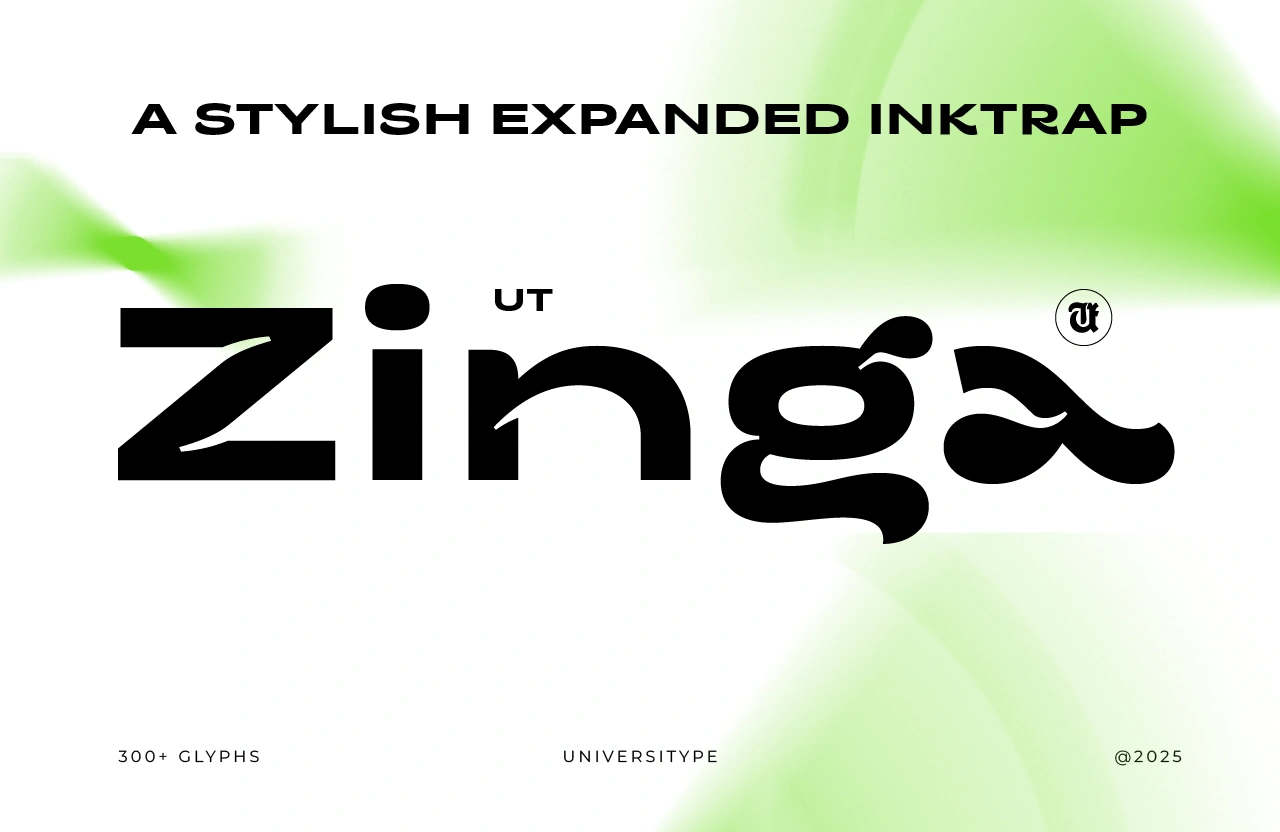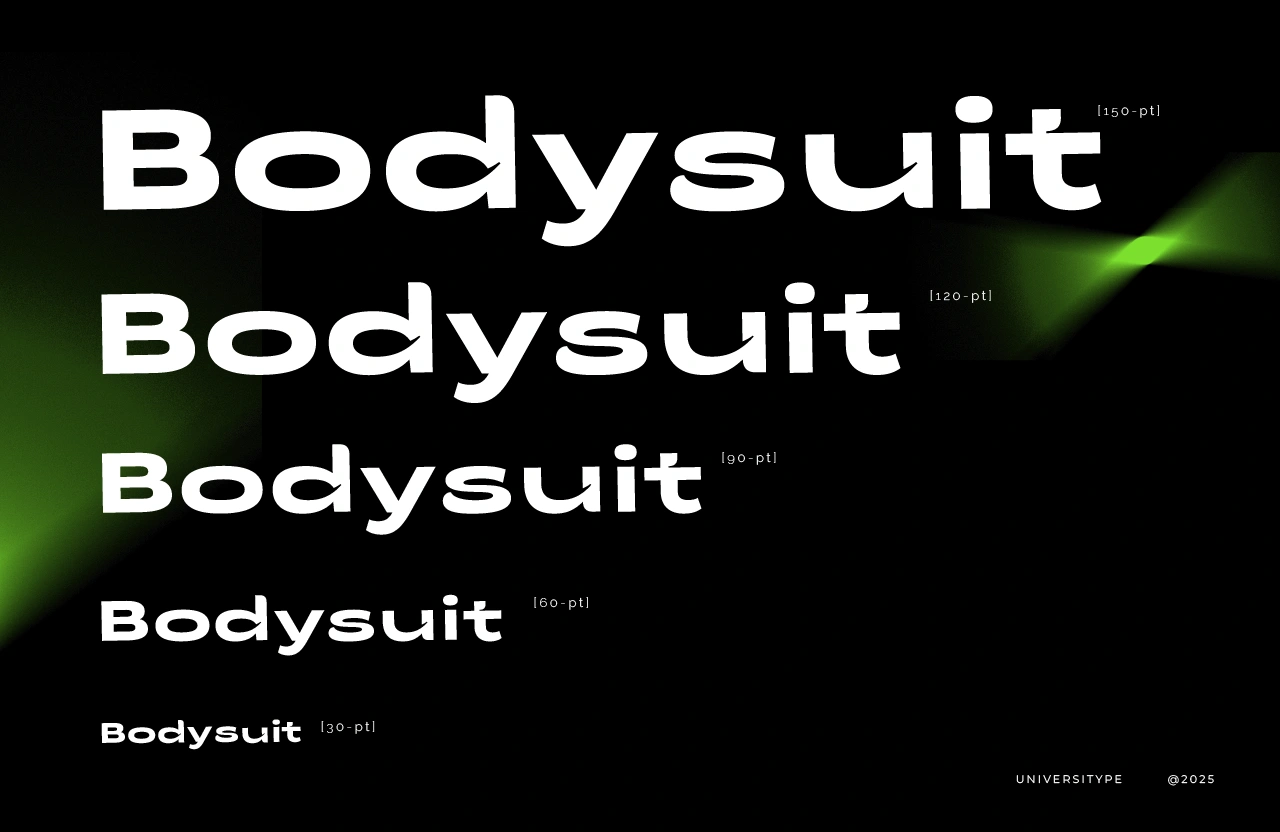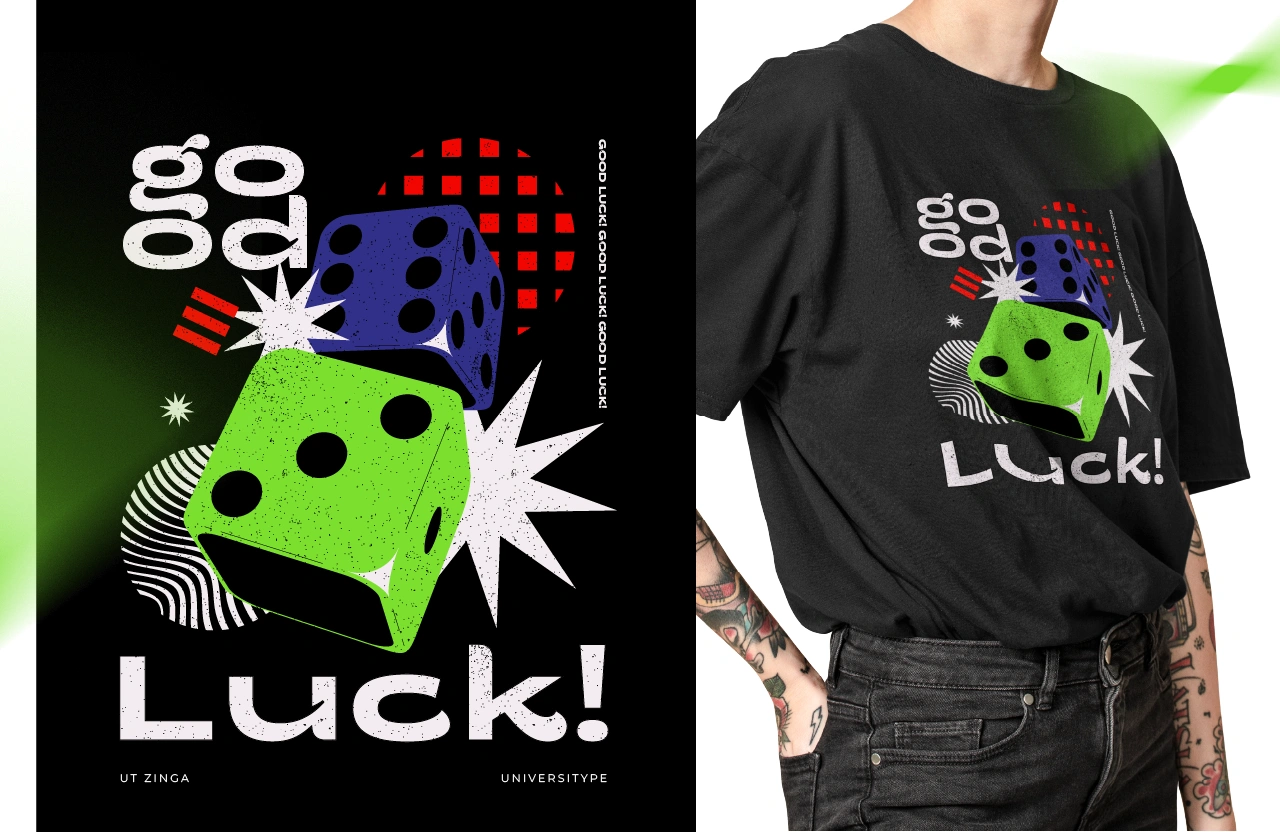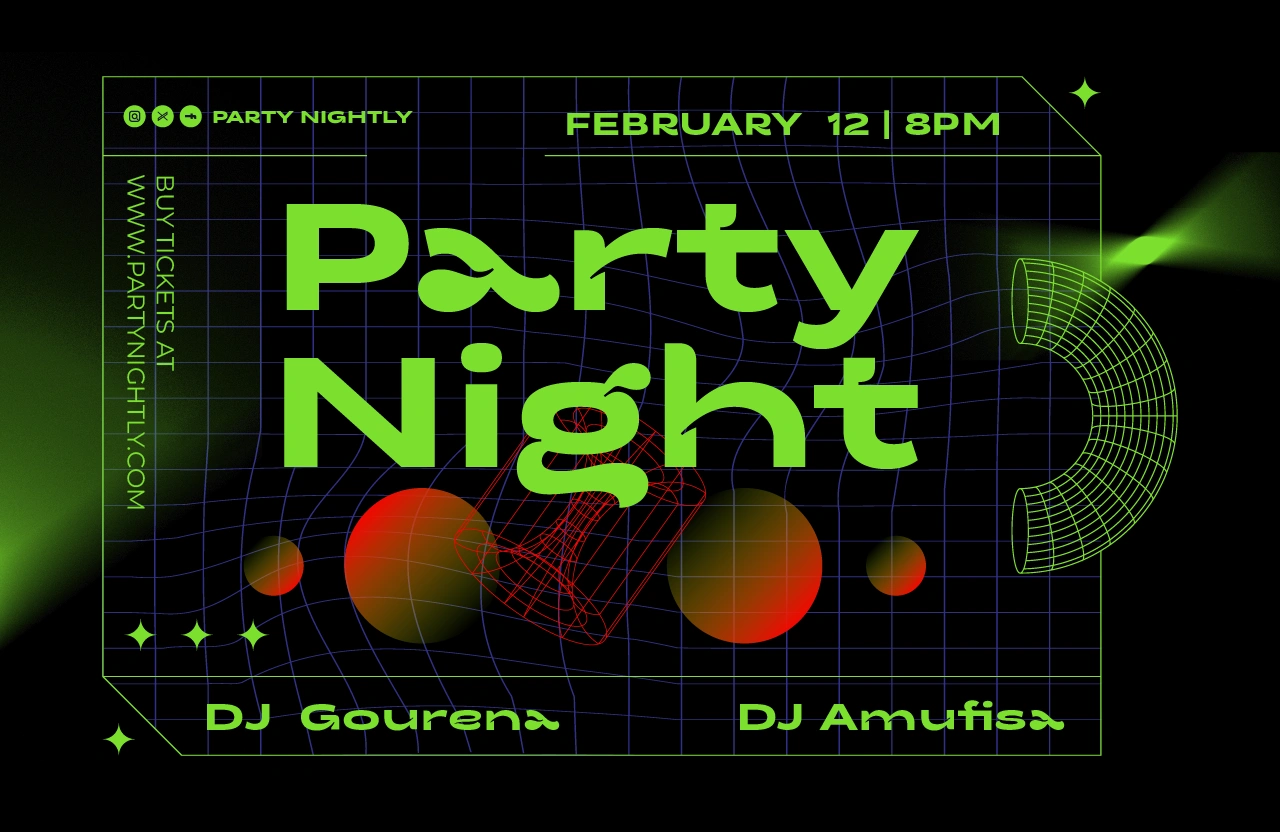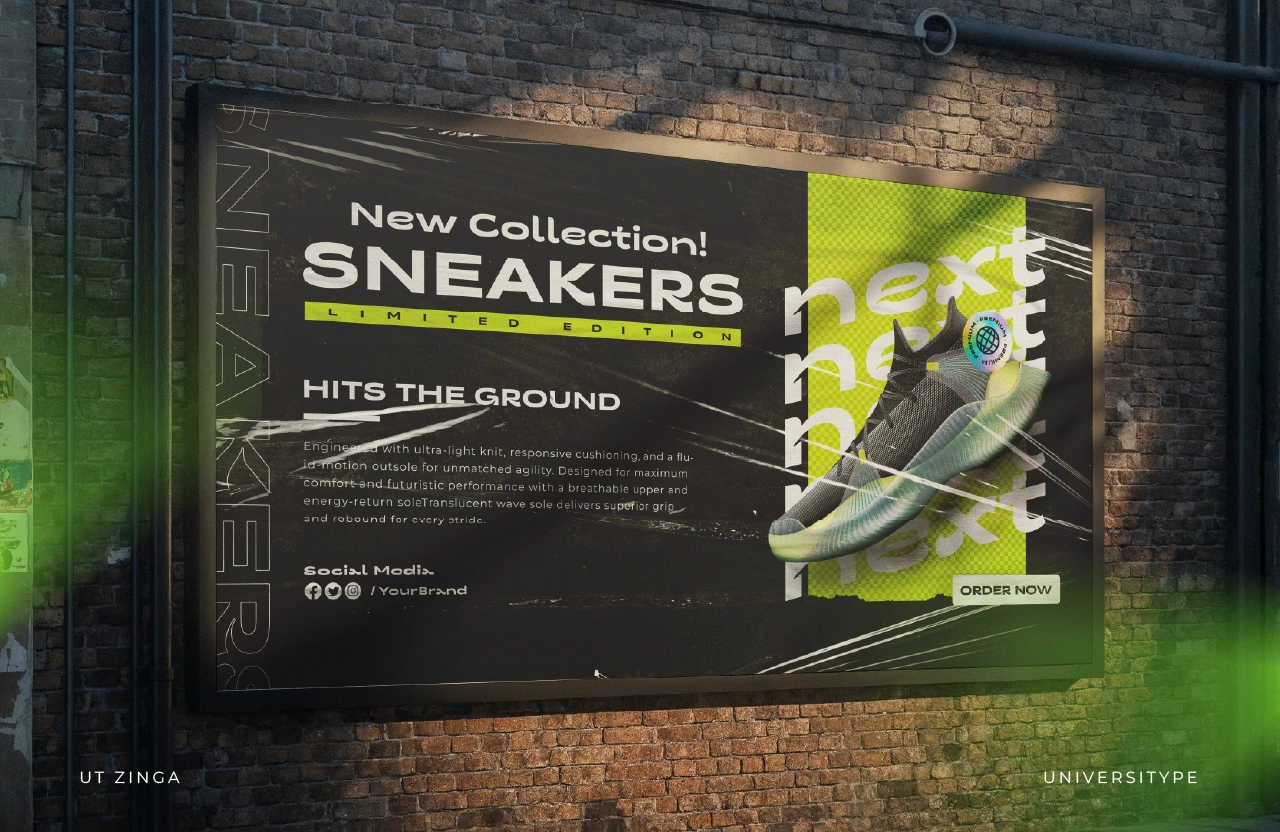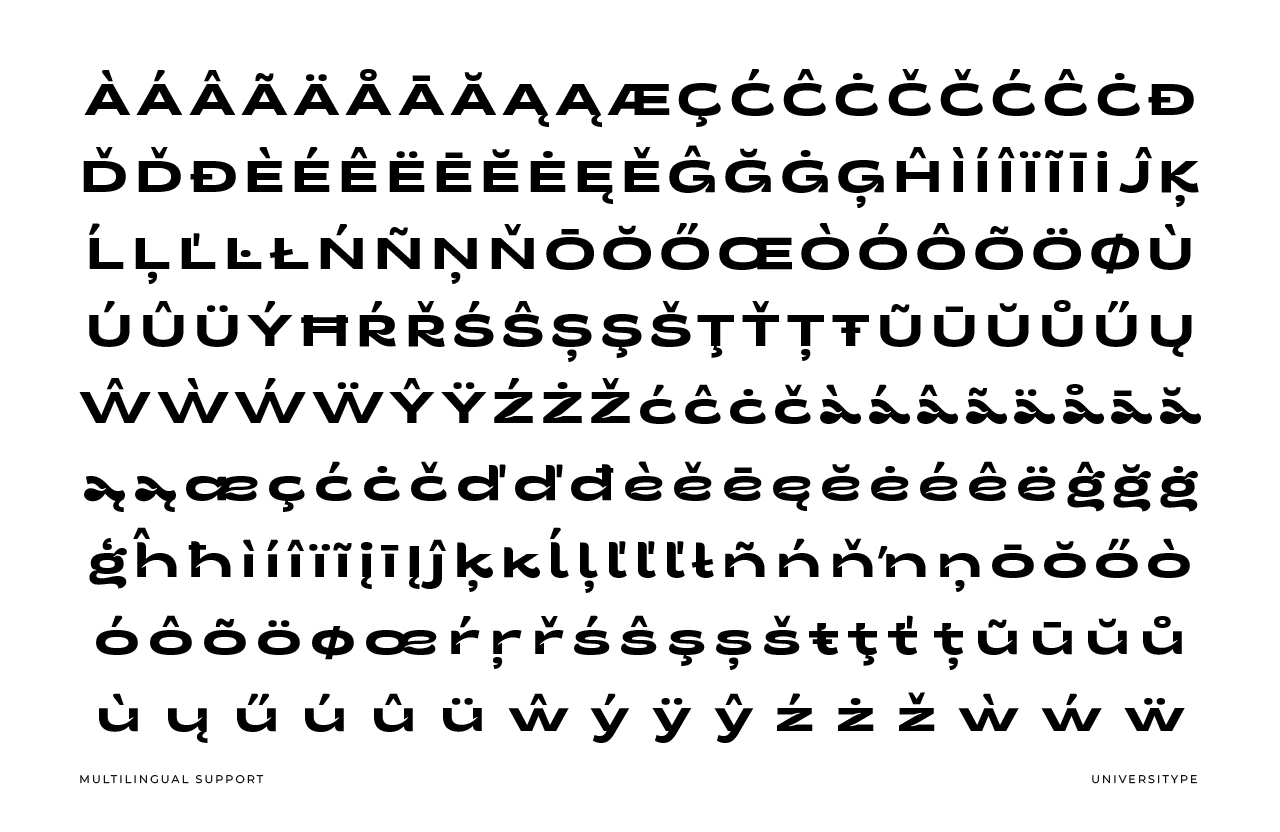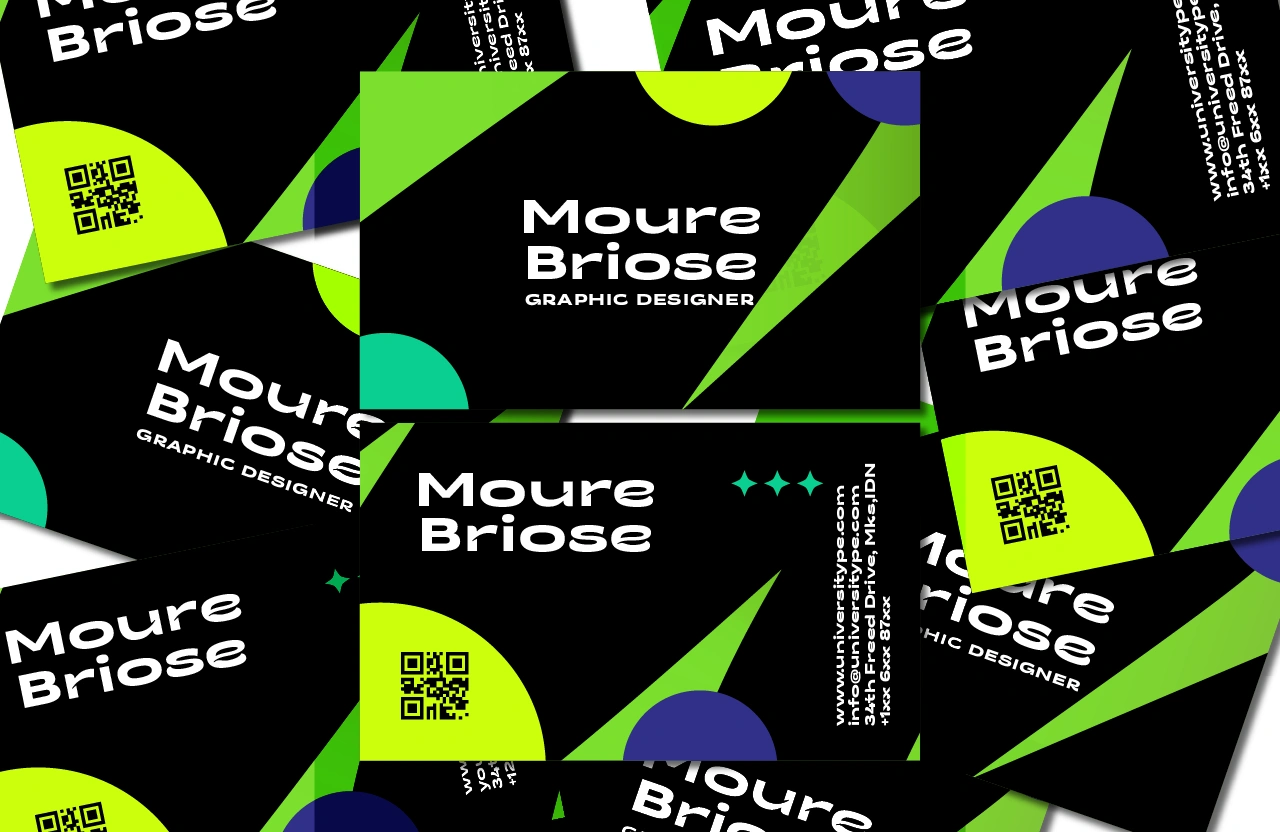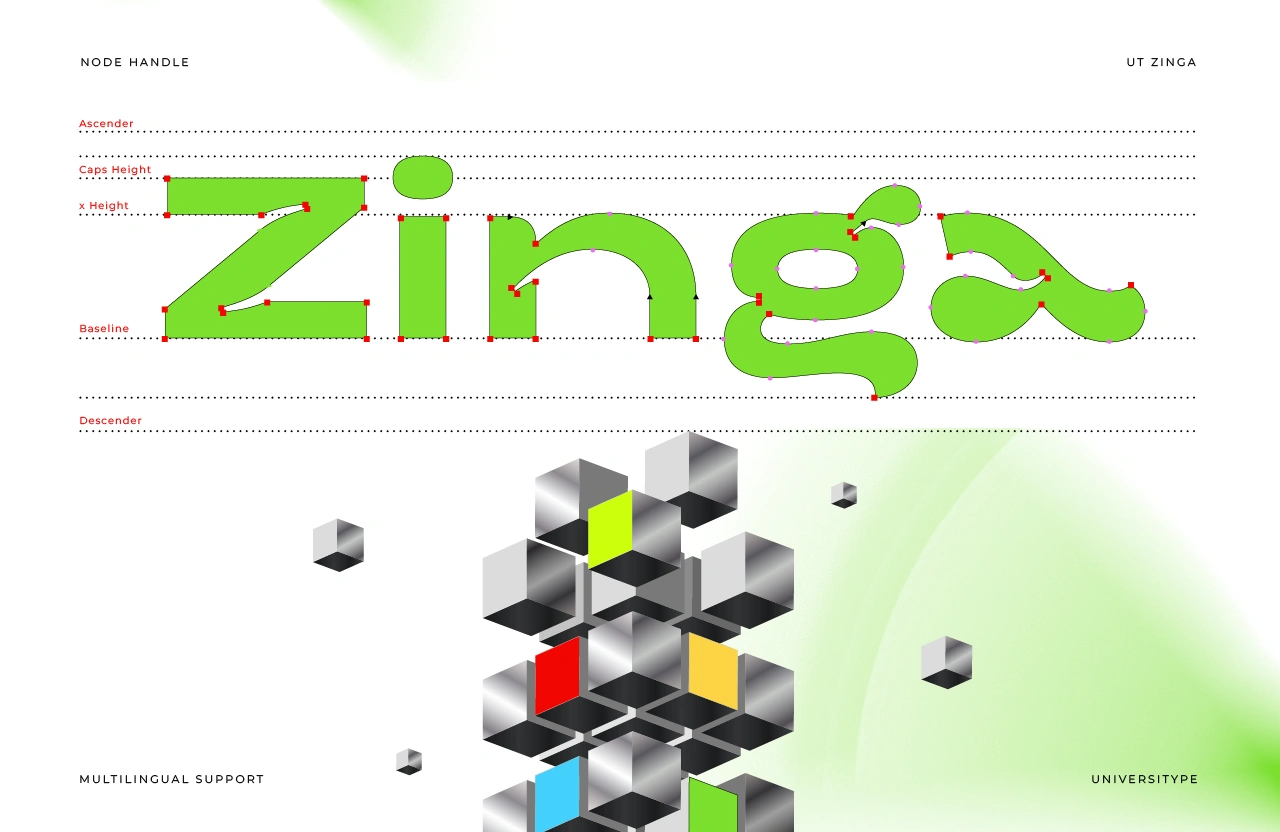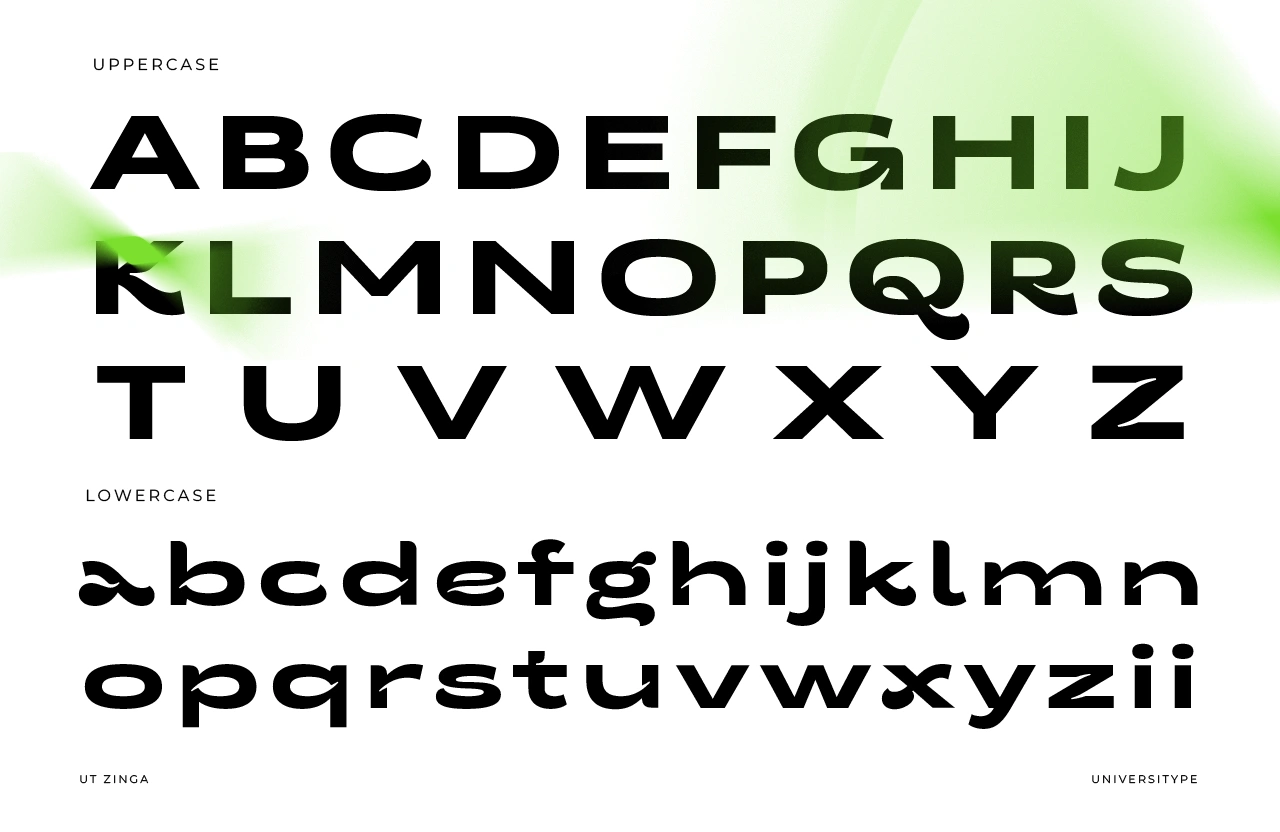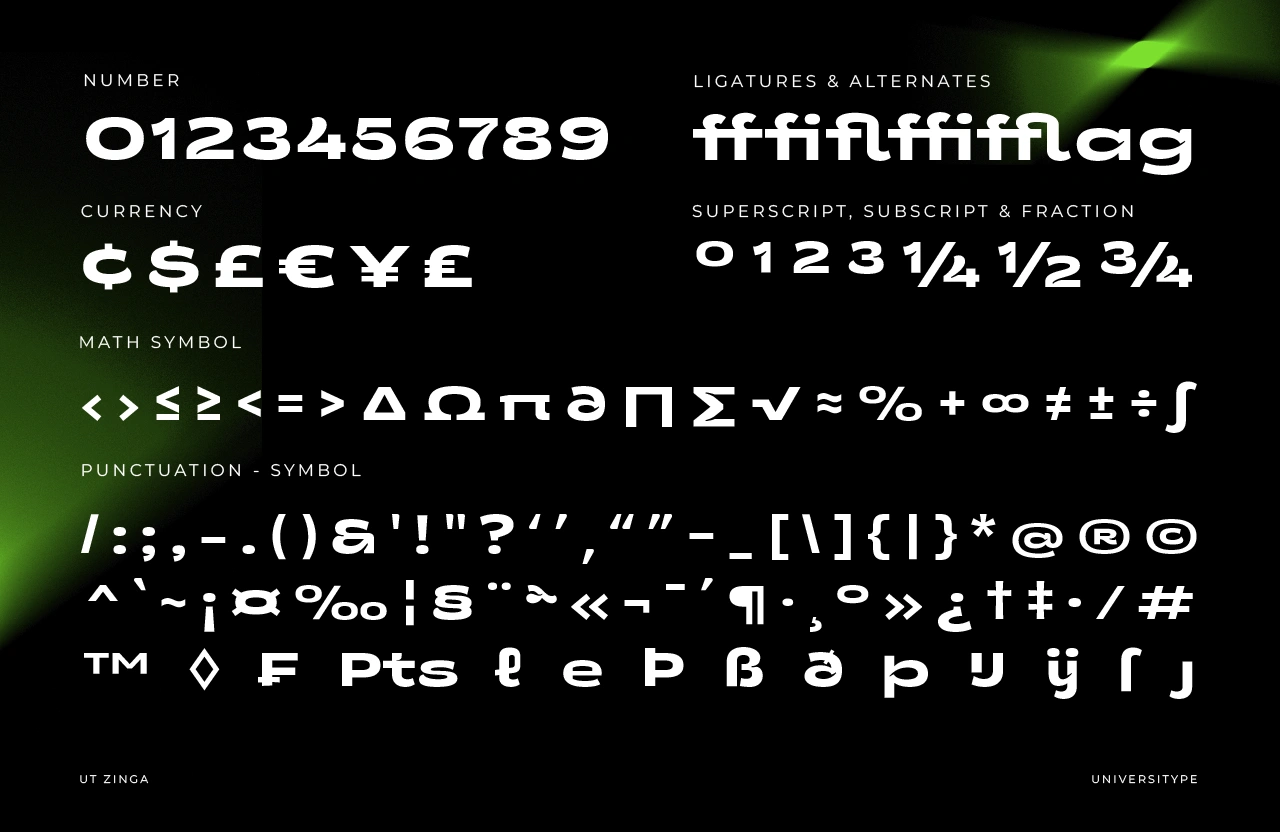
UT Zinga
UT Zinga is an expanded display typeface built for impact. It blends brutalist, industrial structure with fluid, almost liquid motion—resulting in letterforms that feel tense, energetic, and alive. Defined by aggressive inktraps and sweeping wave-like terminals, Zinga doesn’t sit quietly on the page. It hums, pushes, and pulls attention.
UT Zinga – A Stylish Expanded Inktrap
UT Zinga is an expanded display typeface built for impact. It blends brutalist, industrial structure with fluid, almost liquid motion—resulting in letterforms that feel tense, energetic, and alive. Defined by aggressive inktraps and sweeping wave-like terminals, Zinga doesn’t sit quietly on the page. It hums, pushes, and pulls attention.
Its wide stance and heavy horizontal stress give it a futuristic, techno-leaning presence, perfect for designers who want to escape predictable sans-serif territory and lean into something louder, stranger, and sharper.
Target Audience
• Graphic designers working in music-driven branding: techno, electronic, hip-hop
• Streetwear brands needing bold, liquid-style typography for apparel and tags
• Art directors crafting experimental UI/UX or forward-looking editorial layouts
• Motion designers looking for high-contrast forms that animate with attitude
Key Features
• Aggressive inktraps
Deep, sharp cutouts that create a technical, engineered feel
• Signature fluid terminals
Wave-like endings on characters such as a, g, and y, adding organic tension to the rigid structure
• Expanded proportions
A wide footprint designed to dominate headlines and titles
• Large glyph set
300+ characters with broad multilingual coverage
• Custom ligatures
Smart pairings that keep rhythm smooth and intentional
Inspiration Behind the Design
UT Zinga pulls from Y2K cyber optimism and modern Acid Graphics. The core idea was controlled chaos—starting from a heavy geometric base, then selectively “melting” key points to suggest speed, pressure, and flow. Traditional inktraps, once a printing necessity, are pushed into the spotlight as a deliberate, futuristic design statement.
Usage Suggestions
• Display & headlines
Large-scale type where details stay visible
• Apparel design
Chest prints, sleeve details, and bold back graphics
• Posters & flyers
Club events, exhibitions, and tech-focused branding
• Branding & logos
Distinct identities that resist imitation
• Weights: Regular
• Style: Expanded Display
• Glyph count: 300+
Included Features
• Uppercase & lowercase
• Numbers & punctuation
• Standard and discretionary ligatures
• Mathematical symbols
• Multilingual support
Western, Central, South Eastern European
• Stylistic alternates